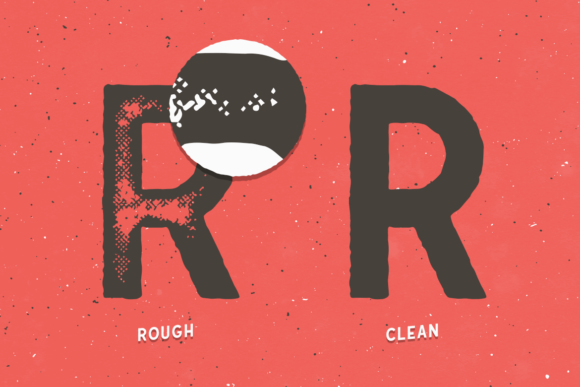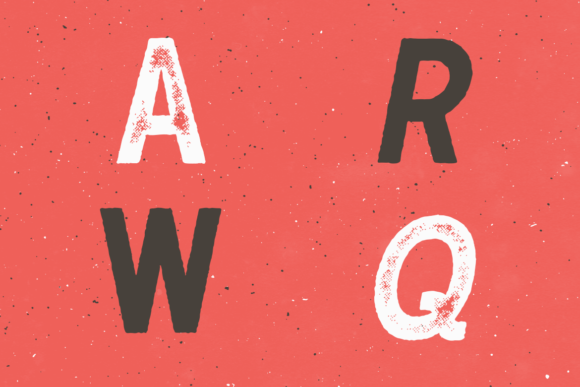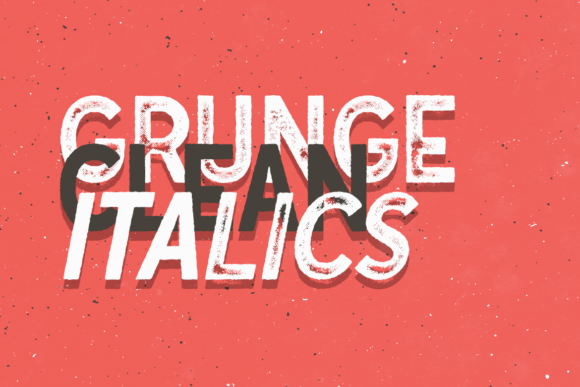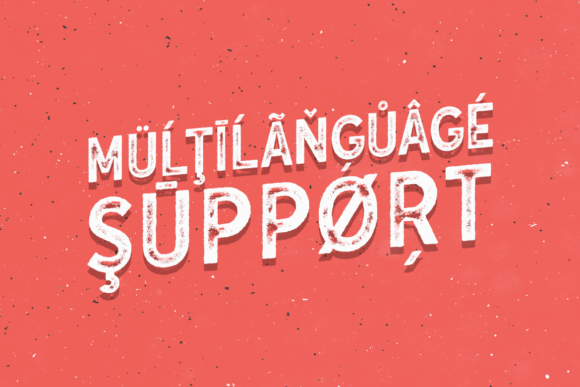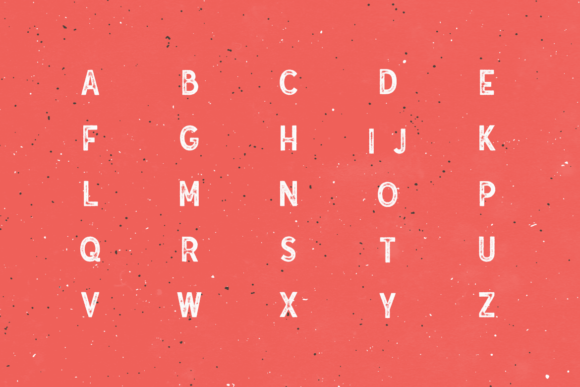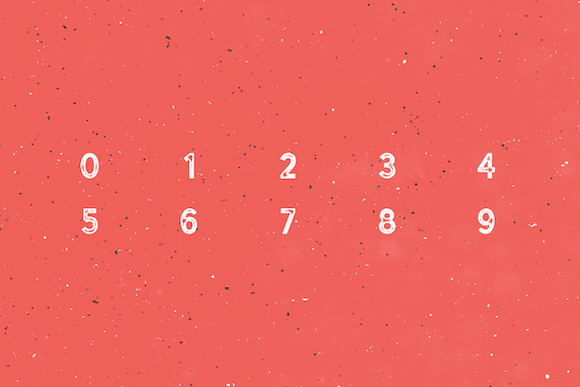
Gutenberg Family Font: A Tribute to the Father of Printing
The Gutenberg Family Font is a unique and fascinating typeface that pays homage to Johannes Gutenberg, the renowned German goldsmith and printer who introduced the movable-type printing press in the 15th century. This sans serif font family is designed to mimic the imperfections of traditional printing, making it an excellent choice for designers and crafters looking to add a vintage touch to their work.
The Inspiration Behind Gutenberg Family Font
The Gutenberg Family Font is inspired by the early days of printing, when ink was transferred onto paper using movable type. The font’s creator aimed to capture the essence of this process by incorporating sketchy edges and irregular scheme imperfections into the design. The result is a font family that exudes a sense of history and nostalgia, perfect for projects that require a touch of classic charm.
Key Features of Gutenberg Family Font
The Gutenberg Family Font boasts several distinctive features that set it apart from other font families:
- Sketchy Edges: The font’s edges are intentionally rough and sketchy, giving it a handmade feel that’s reminiscent of early printed materials.
- Irregular Scheme Imperfections: The font’s design incorporates subtle imperfections that mimic the inconsistencies of traditional printing.
- Transferred Ink Effect: The font’s texture and appearance are designed to evoke the look of transferred ink, adding to its vintage aesthetic.
- Sans Serif: The Gutenberg Family Font is a sans serif font, making it highly legible and versatile for use in a variety of design applications.
Uses for Gutenberg Family Font
The Gutenberg Family Font is an excellent choice for designers and crafters working on projects that require a vintage or distressed look. Some potential uses for this font include:
- Branding and Packaging: Add a touch of classic charm to your brand’s packaging and marketing materials.
- Stationery and Invitations: Create unique and eye-catching stationery, invitations, and greeting cards with a vintage flair.
- Web Design: Use the Gutenberg Family Font to add a touch of history and character to your website’s design.
- Crafting and Scrapbooking: Incorporate the font into your crafting and scrapbooking projects for a personalized and nostalgic look.
Tips for Using Gutenberg Family Font
To get the most out of the Gutenberg Family Font, consider the following tips:
- Experiment with Font Sizes: The font’s sketchy edges and imperfections are more pronounced at larger font sizes, making it ideal for headlines and titles.
- Pair with Other Fonts: Combine the Gutenberg Family Font with other fonts to create a unique and visually appealing typography scheme.
- Adjust the Color: Experiment with different colors to find the perfect match for your design, taking into account the font’s vintage aesthetic.
The Gutenberg Family Font is a unique and captivating typeface that pays tribute to the innovative spirit of Johannes Gutenberg. With its sketchy edges, irregular scheme imperfections, and transferred ink effect, this font family is perfect for designers and crafters looking to add a touch of vintage charm to their work. Whether you’re working on a branding project, creating stationery, or designing a website, the Gutenberg Family Font is an excellent choice for adding a sense of history and character to your design.